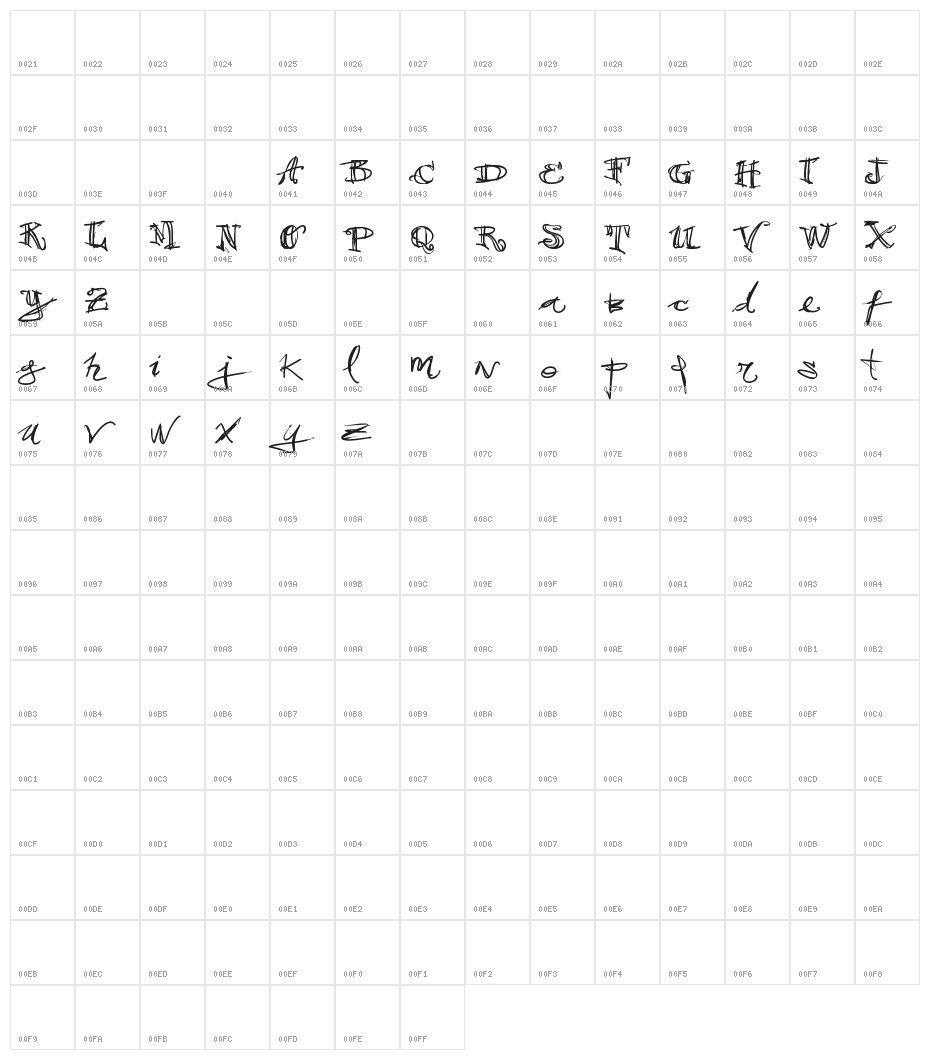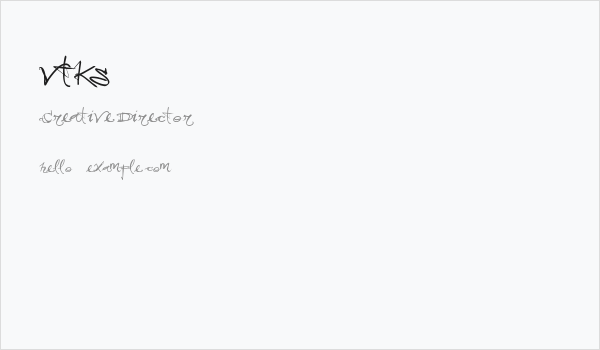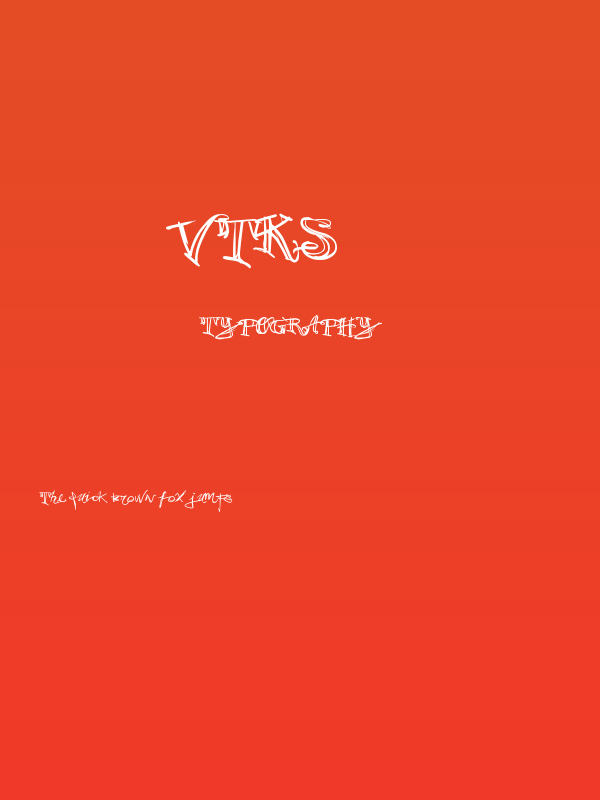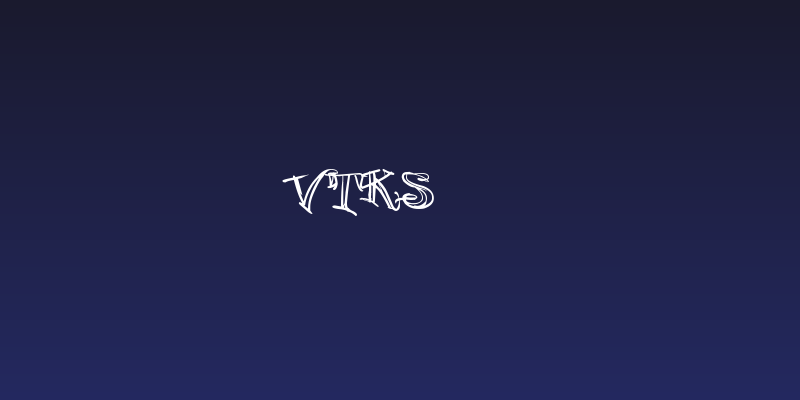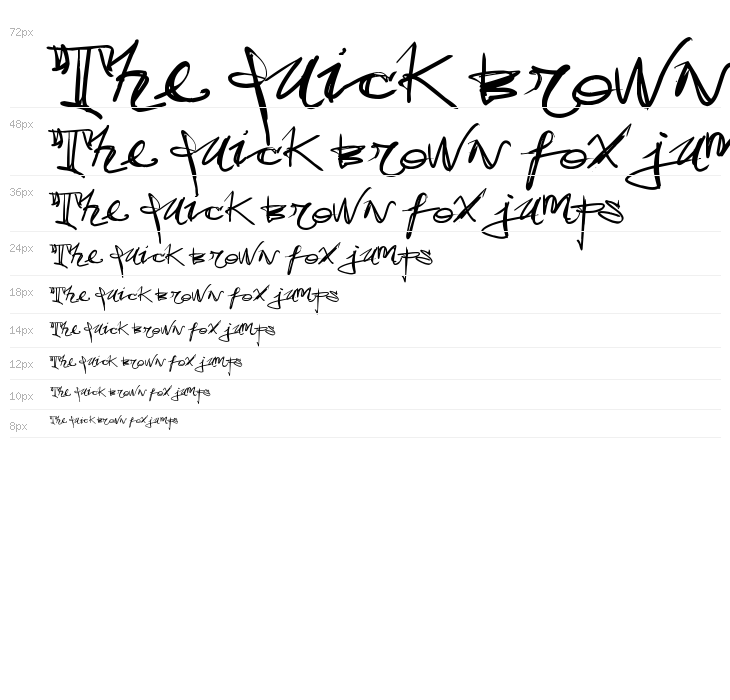
vtks 38 Font
vtks 38 Description
This font features a highly decorative and artistic style, characterized by its intricate and elaborate letterforms. The uppercase letters exhibit a bold and expressive design, with exaggerated curves and sharp angles that create a dynamic and energetic appearance. The lowercase letters maintain a similar level of flair, with fluid strokes and a slightly cursive influence that adds to the overall aesthetic. The font's unique style is further enhanced by its uneven baseline and varying stroke widths, which contribute to its edgy and rebellious feel. This font is ideal for projects that require a strong visual impact and a sense of individuality.